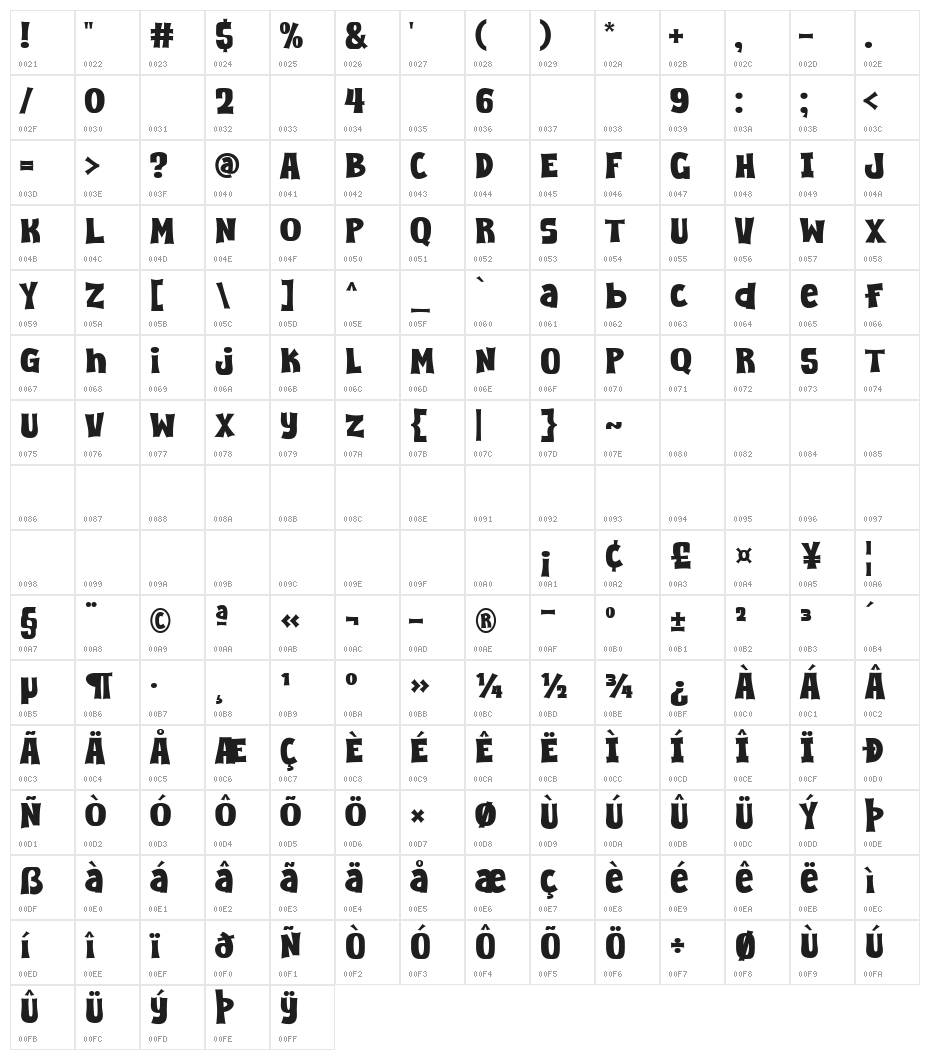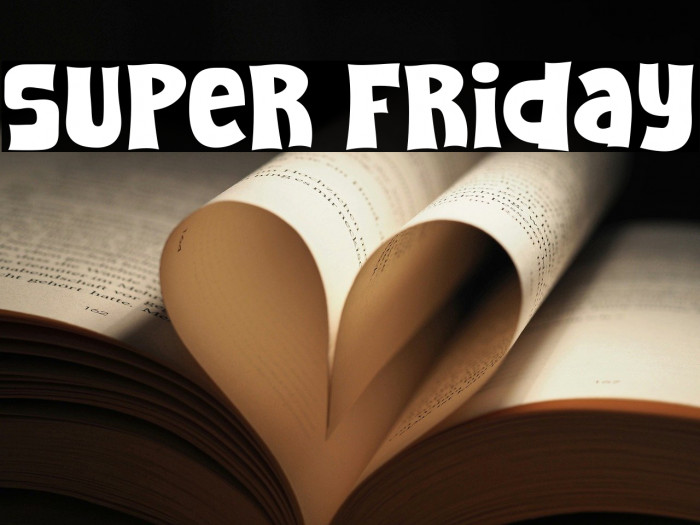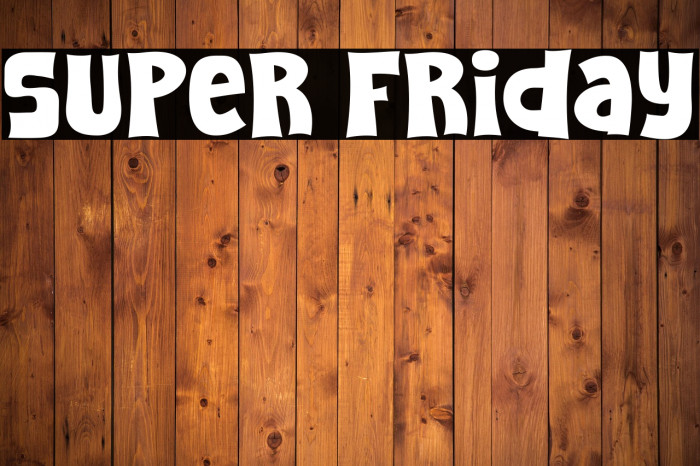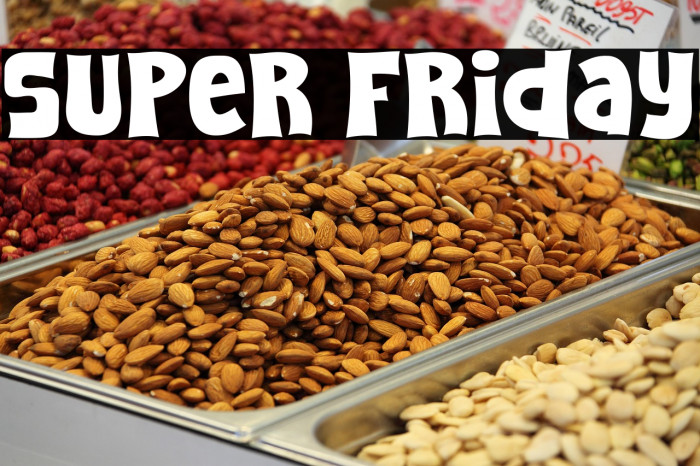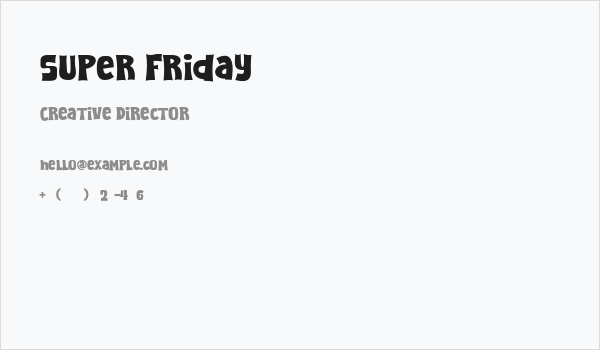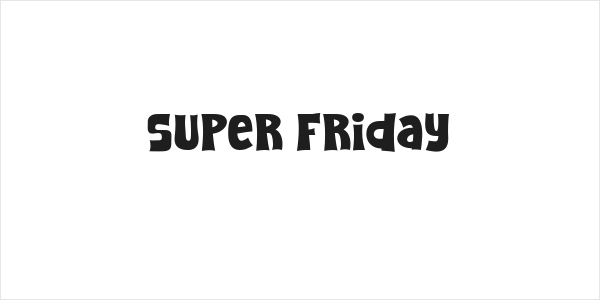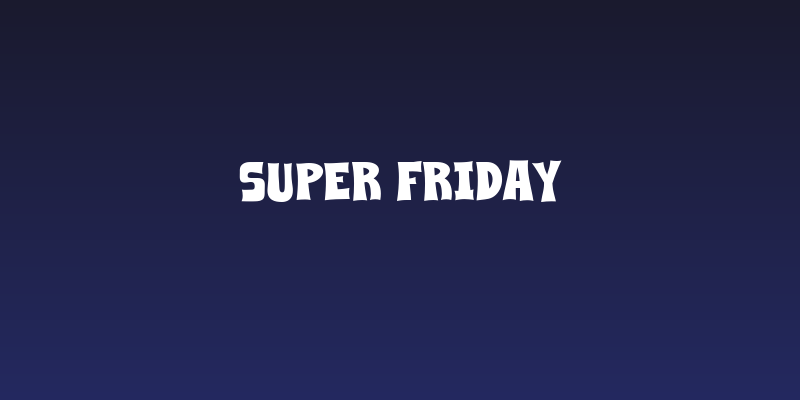
Super Friday Font
Super Friday Description
This font features a bold and playful style, characterized by its thick, uneven strokes and whimsical appearance. The letters have a hand-drawn quality, with exaggerated curves and varying widths that give it a lively and dynamic feel. The uppercase and lowercase letters maintain a consistent style, with the uppercase being slightly more angular. Numbers and special characters follow the same playful design, making the font suitable for creative and informal applications. Its unique style captures attention and adds a fun, energetic vibe to any project.
| Proposed Projects | Ideal for children's books, comic strips, party invitations, and playful branding. |